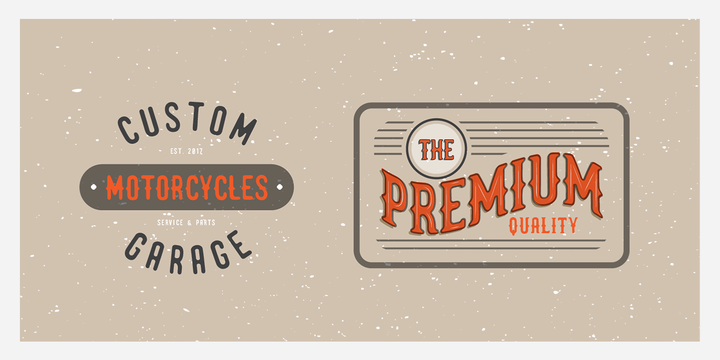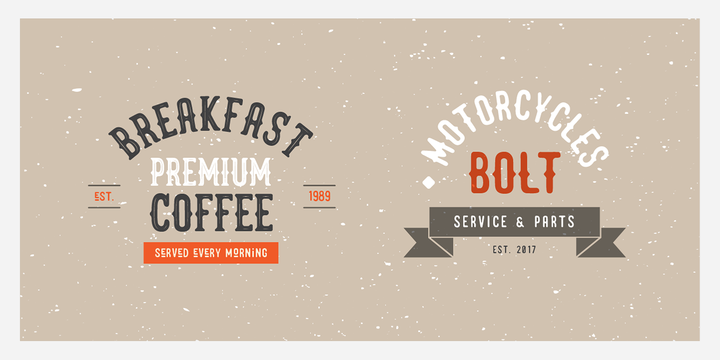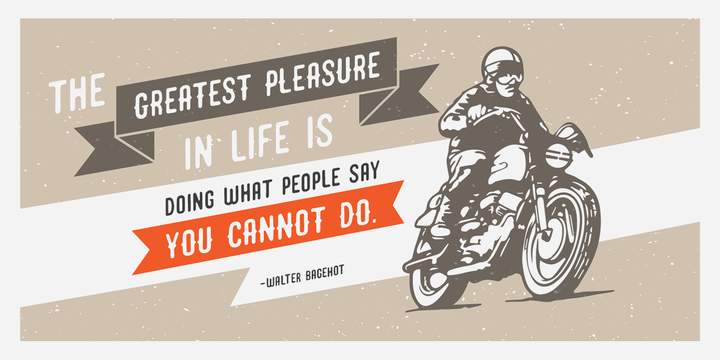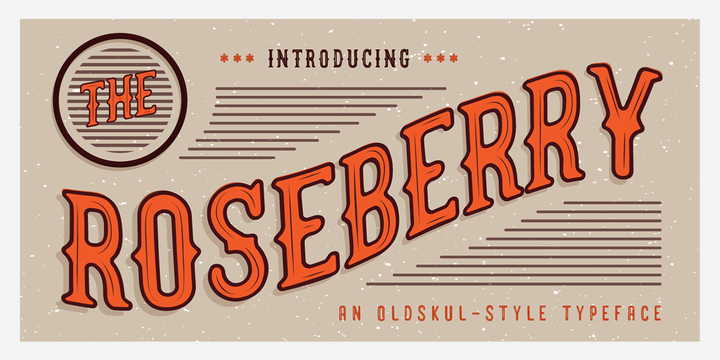
Introducing The Roseberry, a classic handmade serif. The Roseberry is a handmade serif display typeface, inspired by classic western poster. Imperfect lines and edges lead us to a classic look. In 3 different kind of style, The Roseberry can simply give a vintage vibe on your design.
Features: * 3 different style: Roseberry Solid, Outline & Codet. * All caps, numbers and punctuation.